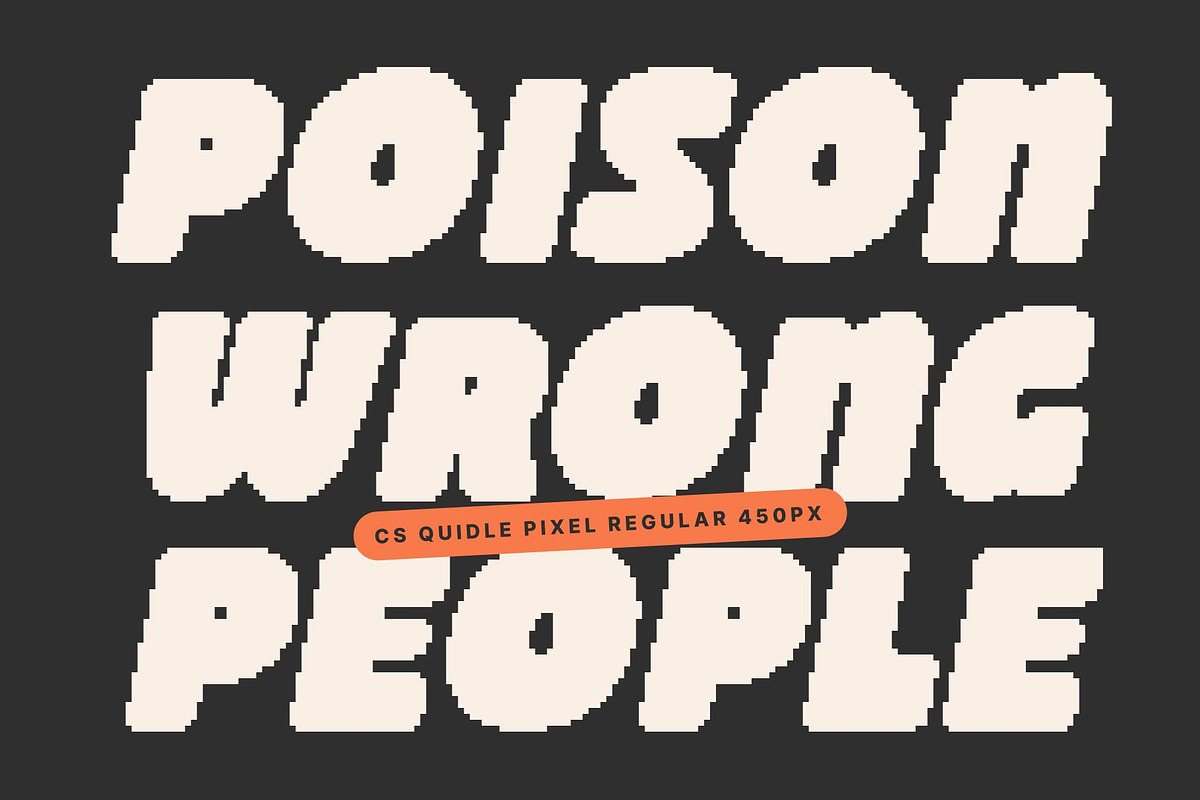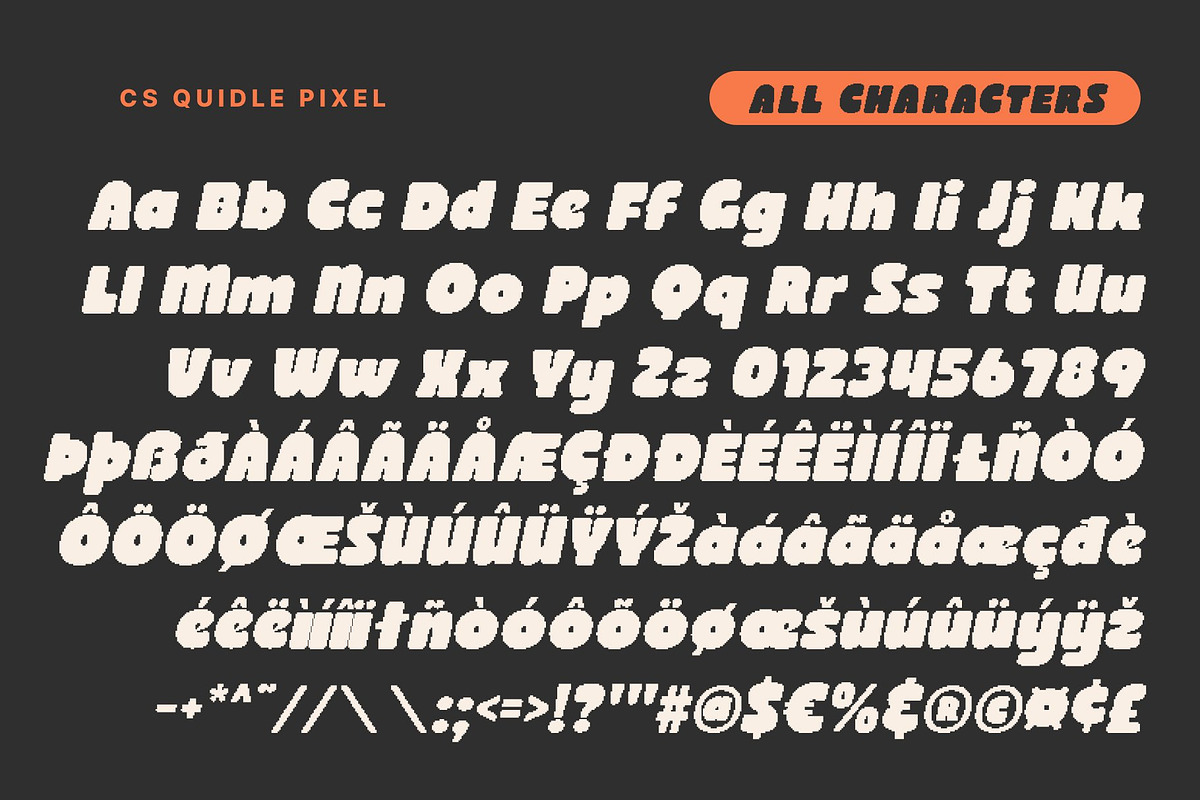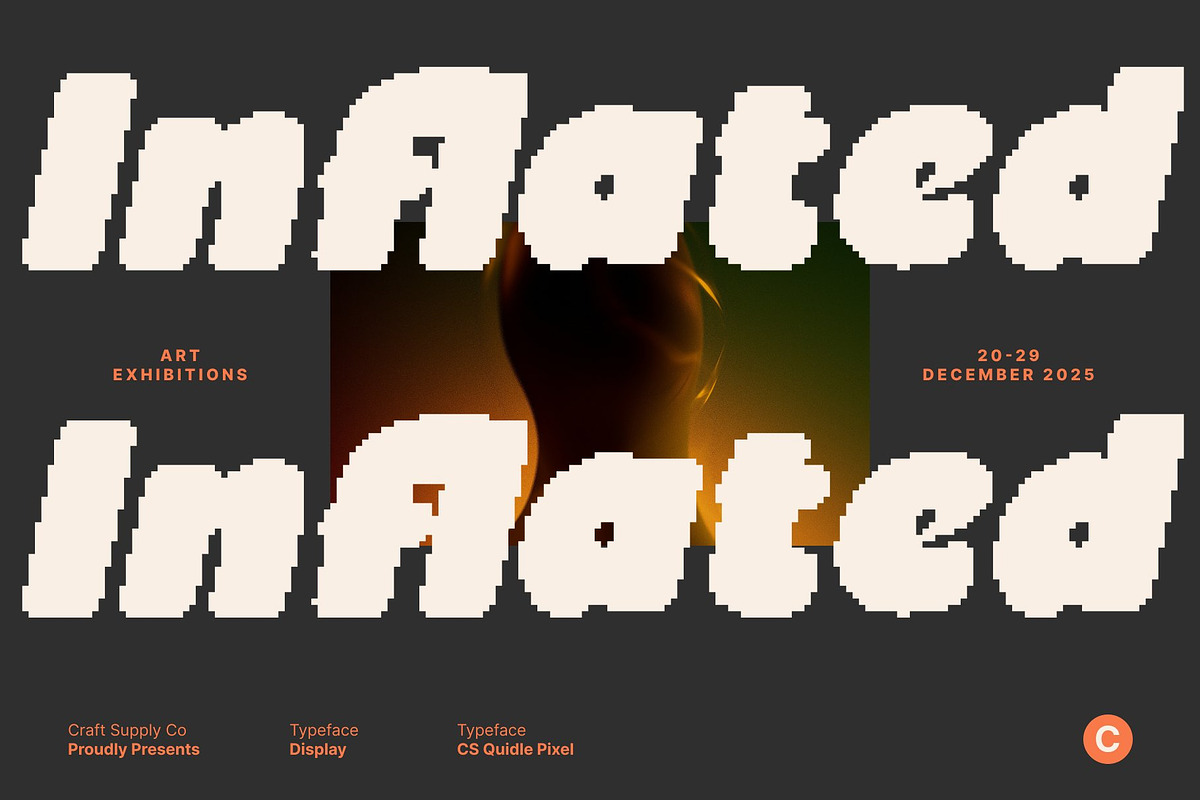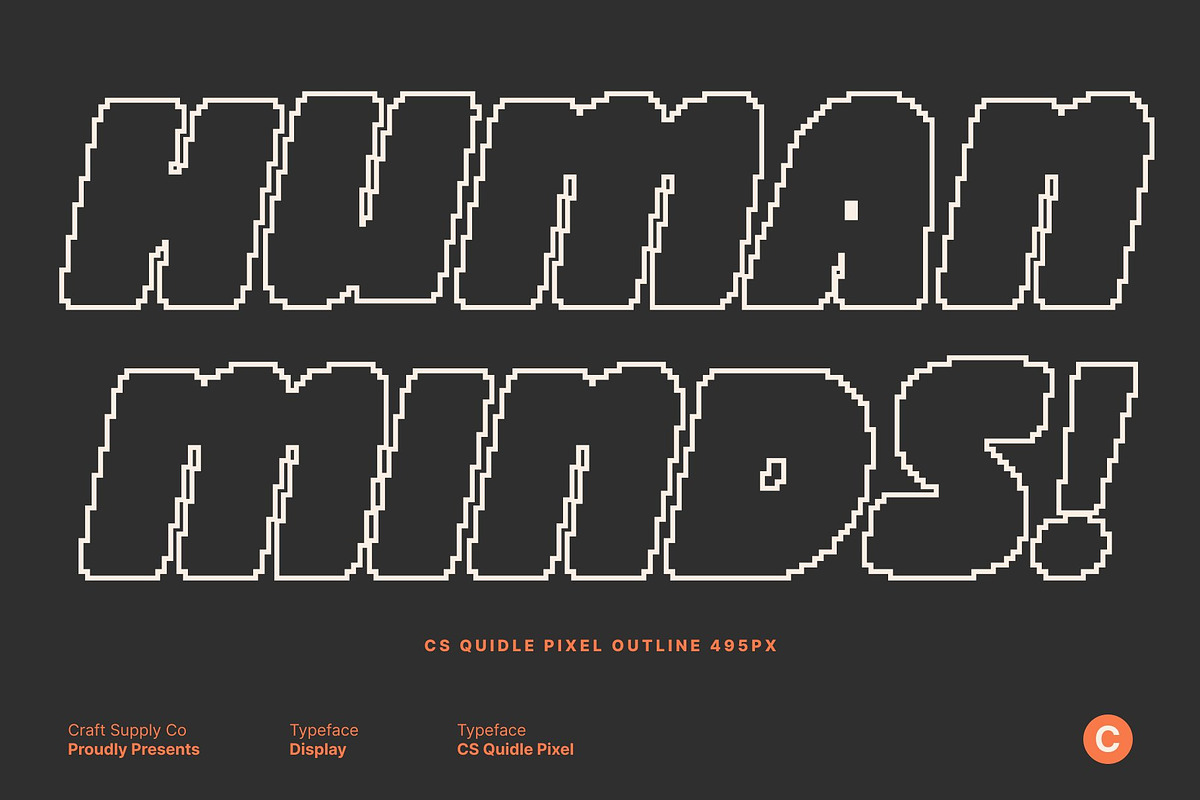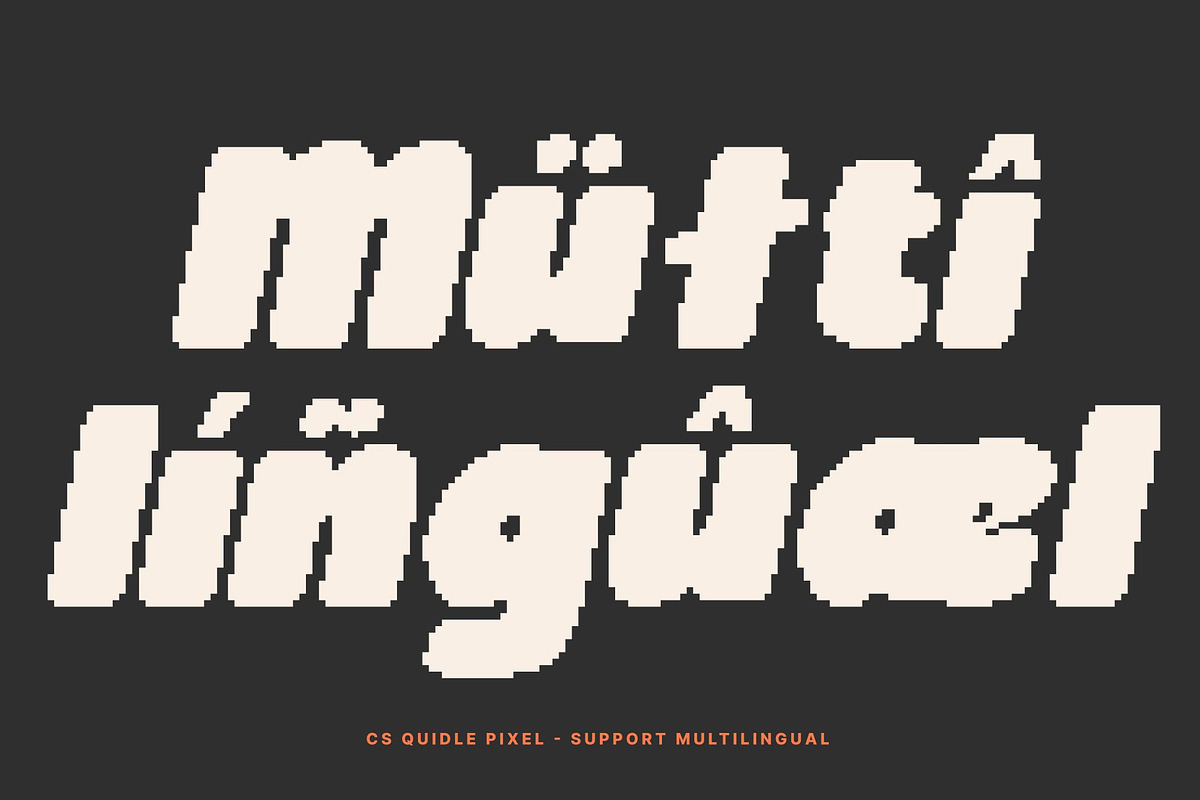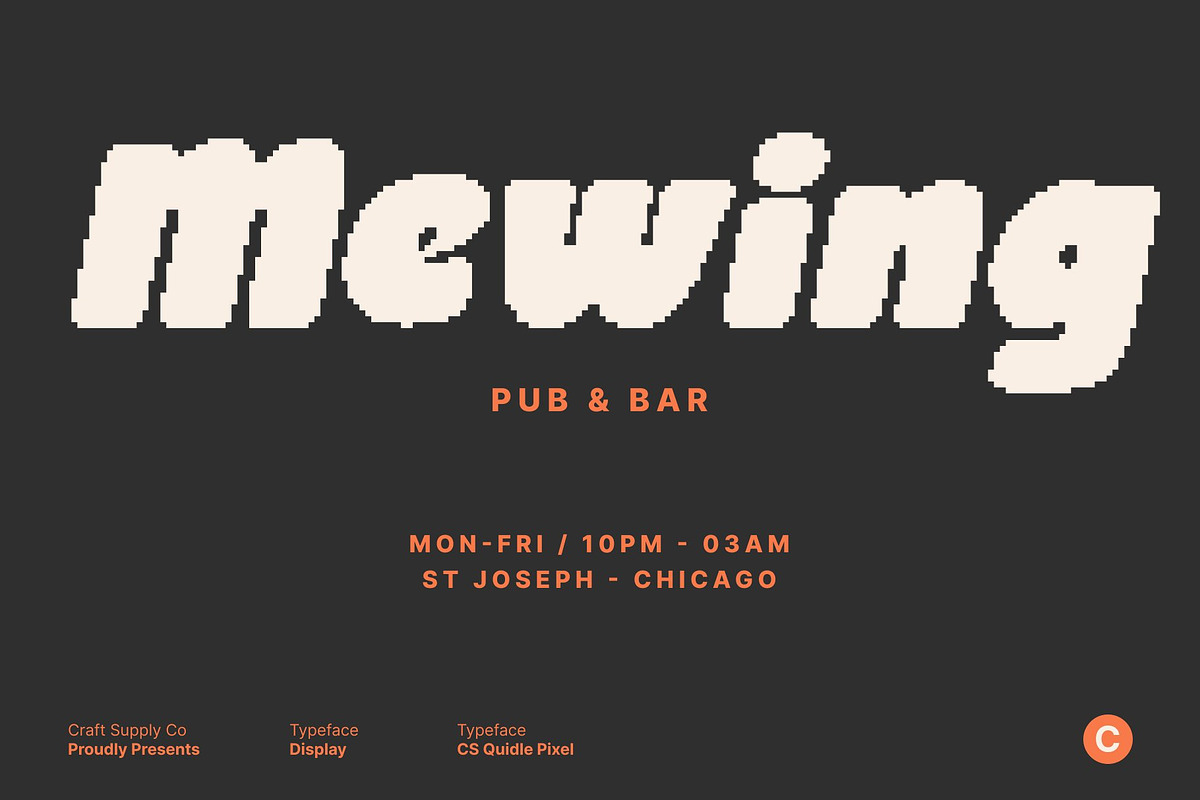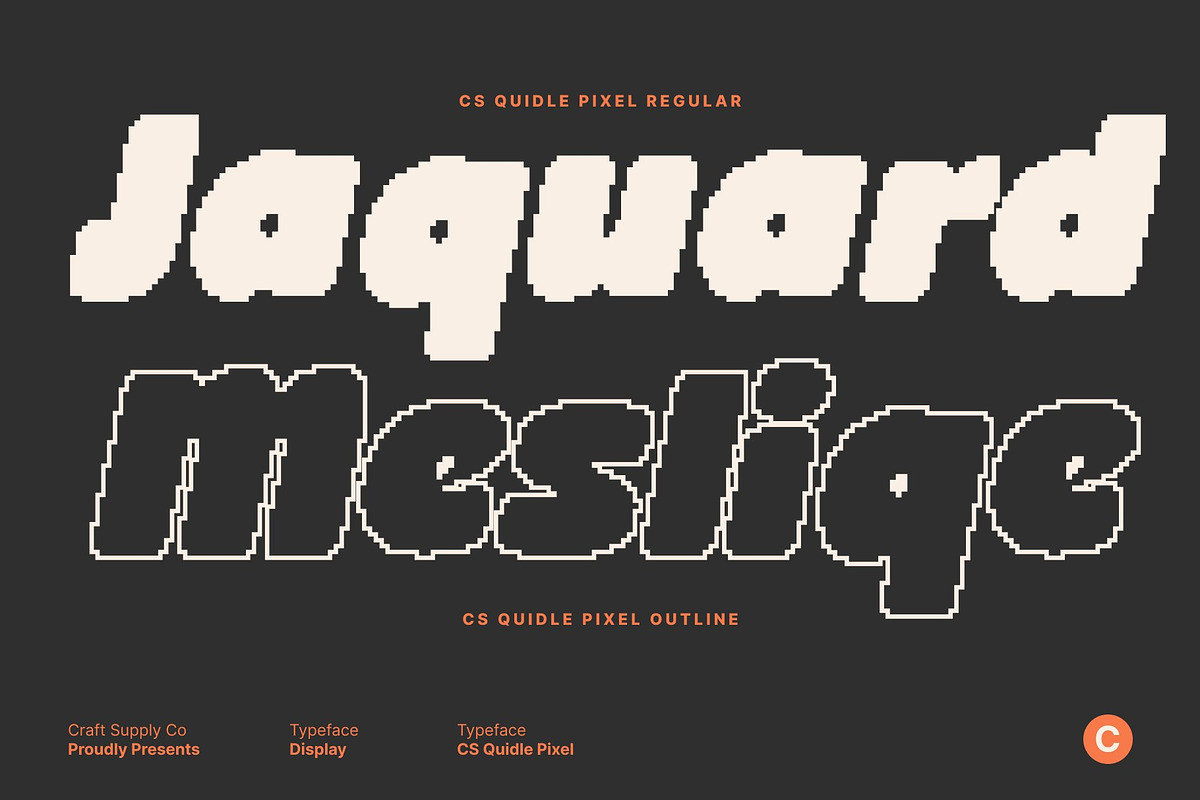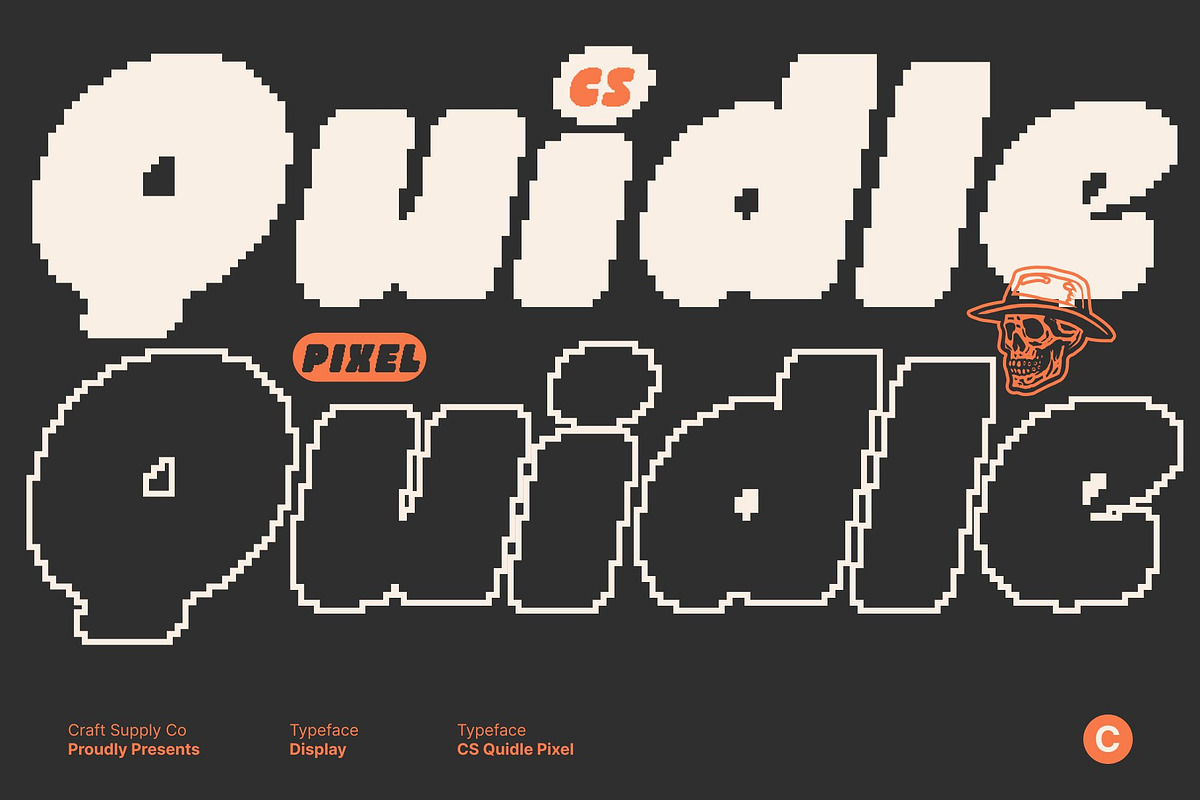
CS Quidle Pixel
CS Quidle Pixel – Bold Charm with Playful Digital Personality
Chunky Pixel Display Font with Strong Presence This is a bold, chunky display font built with a pixel-based structure that delivers instant impact. Its confident geometric blocks are softened by rounded, friendly forms, creating a modern pixel style that feels playful, cute, and full of personality.
Quirky Pixel Details for Visual Fun Each letter features charming pixel quirks that add whimsy and character without sacrificing clarity. These subtle digital imperfections give the font a lively rhythm, making headlines and titles feel energetic, fun, and visually engaging perfect for designs that want to feel joyful and expressive.
Thick Pixel Strokes with Clear Readability Designed with thick pixel strokes and clean alignment, this font remains highly readable even at small sizes. Its bold construction ensures strong contrast and visibility, making it ideal for eye-catching headlines, social media graphics, packaging, and playful branding.
Perfect for Creative, Fun, and Retro-Digital Projects This font shines in playful branding, posters, games, stickers, packaging, children’s designs, and retro-inspired digital visuals. Its combination of chunky pixel strength and cute personality makes it perfect for projects inspired by pixel art, old-school games, and fun modern digital culture.